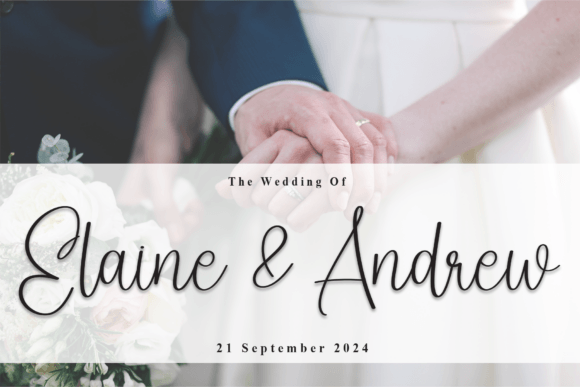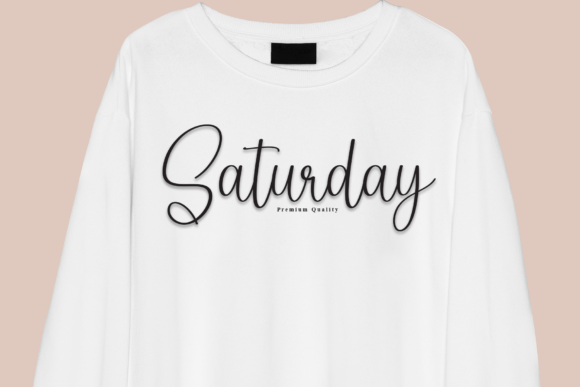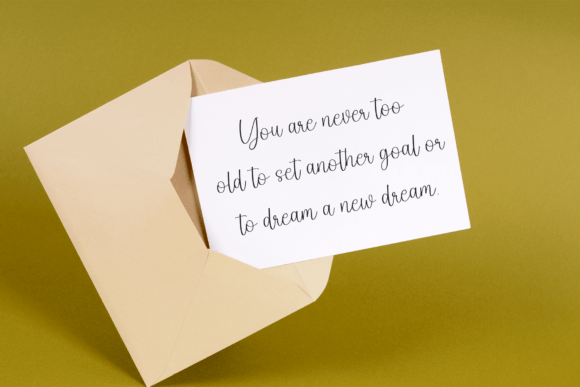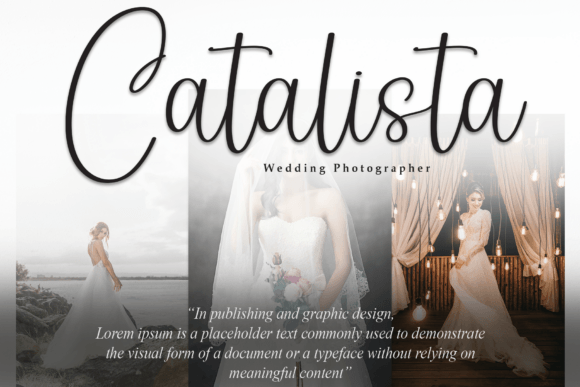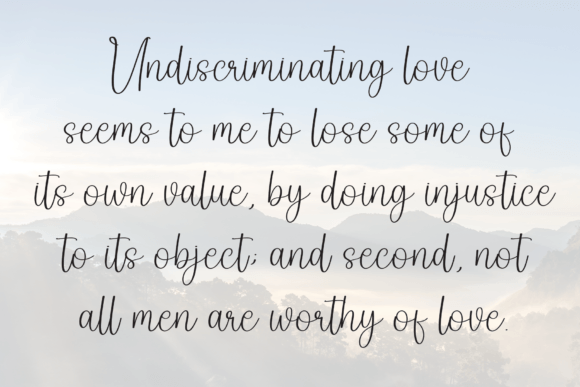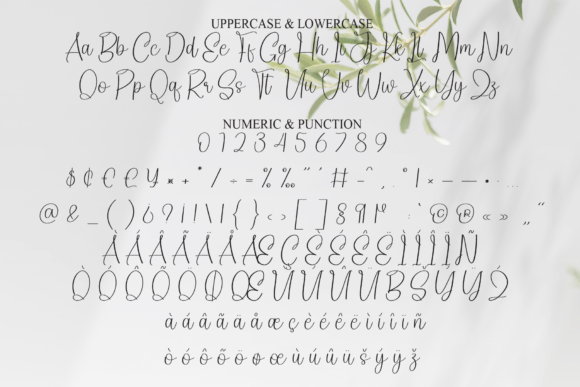
Adding a Touch of Whimsy: The Kinder Someone Font
As designers, we’ve all been there – staring at a blank page, trying to come up with the perfect way to express a message. Sometimes, it’s not about the words themselves, but the way they’re presented. That’s where the Kinder Someone Font comes in – a charming handwritten font that brings a smile to any project.
This delightful font is designed to add a personal touch to your designs, making them feel warm and inviting. With its soft curves and casual style, Kinder Someone Font is perfect for projects like invitations, greeting cards, and children’s books. Its friendly letters are sure to make your audience feel special, and its versatility makes it a valuable addition to any designer’s toolkit.
Kinder Someone Font Key Features
- Font Family: Kinder Someone
- Unique Characteristics: Kinder Someone features a playful, cursive script with a mix of round and angular shapes, making it perfect for children’s books, greeting cards, and other creative projects
Kinder Someone Font Review
Overall, I have mixed feelings about the Kinder Someone font. While it has some great qualities, it also has some limitations that might make it less suitable for certain projects.
- The font’s playful and whimsical nature makes it perfect for projects that require a childlike or friendly tone.
- The font’s bold weight options make it great for headings and titles that need to stand out.
- The font’s unique letterforms add a touch of personality to text, making it more engaging for readers.
- The font’s irregular letterforms can make it difficult to read at smaller font sizes.
- The font’s playful nature can sometimes come across as immature or unprofessional.
- The font’s limited language support might be a concern for projects that require text in multiple languages.
Overall, I think the Kinder Someone font is a great choice for projects that require a playful and friendly tone. However, it might not be the best choice for projects that require a more serious or professional tone. With careful consideration and use, this font can be a great addition to any design project.
Pacifico is a beautiful script font that is perfect for use in titles, headings, and other display typography. It has a unique, hand-written feel that can add a touch of elegance to your design. When to use: Use Pacifico for projects that require a touch of sophistication and a relaxed, beachy vibe. Compared to Kinder Someone Font, Pacifico is more cursive and has a softer, more laid-back feel.
Is Kinder Someone available in other languages?
Kinder Someone is available in a limited number of languages, including English, Spanish, French, and German. However, the font is not fully supported for languages that require complex scripts, such as Arabic, Chinese, or Japanese. If you require a font that supports a specific language, please contact the font foundry to inquire about availability.